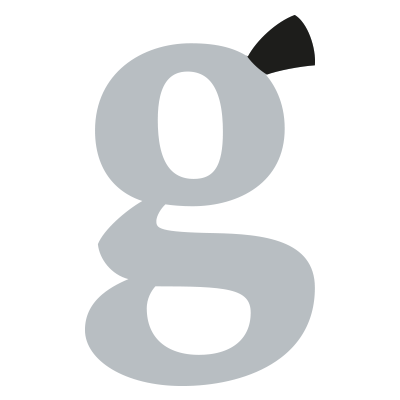
An ear-like stroke, which usually only appears in the design of a double-story g.
German: Ohr
Italian: Orecchio
Polish: uszko
Portuguese: Orelha
Spanish: Oreja
Turkish: Kulak